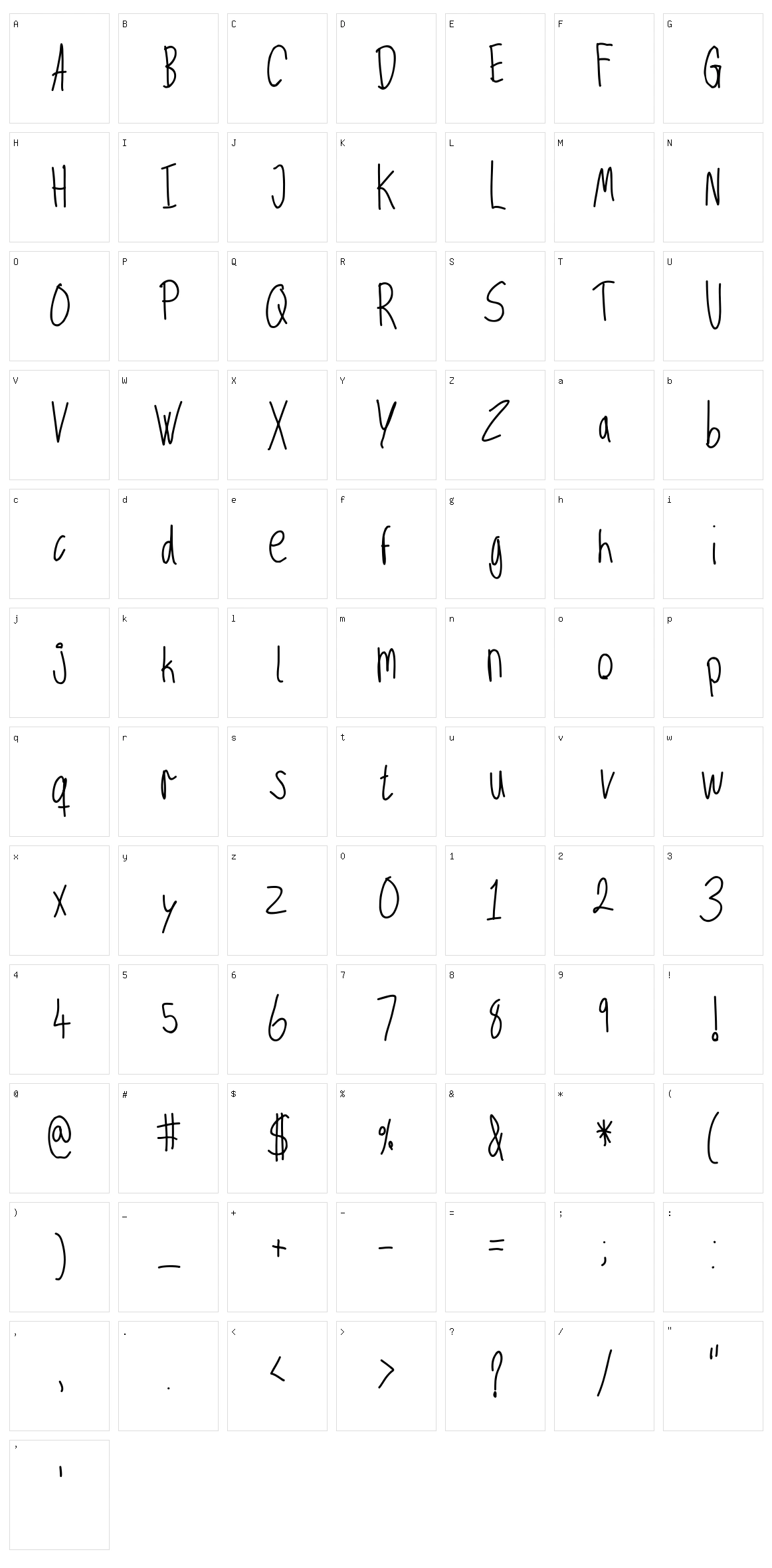
The free font JMMJ is carefully designed by Jmmj, showcasing a thoughtful balance of creativity and usability and falls under the Script font style. When you download the ZIP file, it contains only 22.2 KB of font files, making it lightweight and quick to download. Please review the license details below to understand permitted usage and distribution rights. If license information is not available, we recommend using this font for personal projects only or contacting the author directly for commercial usage permissions.